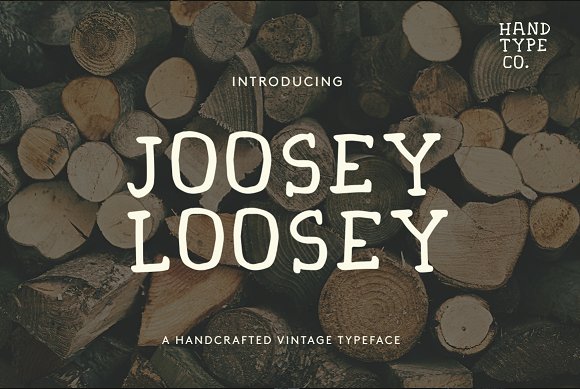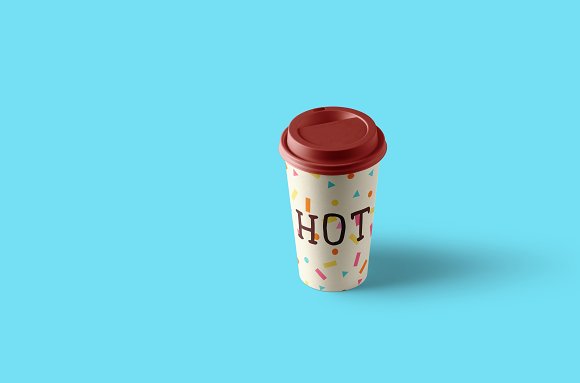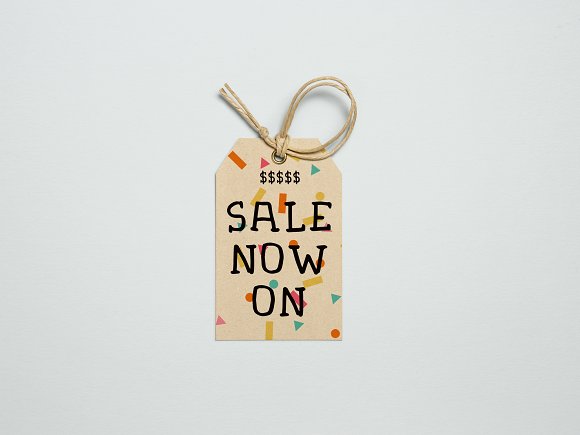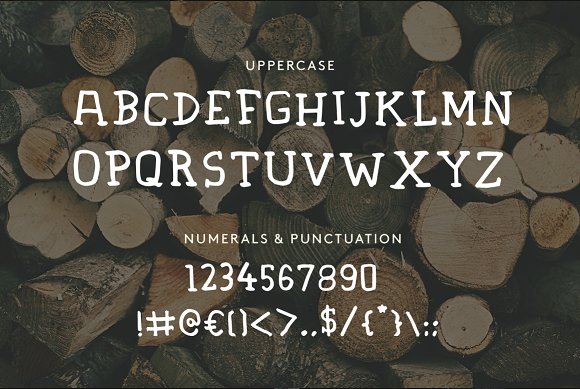
Joosey Loosey Font
Introducing Joosey Loosey Typeface.
Joosey Loosey is a vintage inspired hand-drawn font inspired from the old western vintage style.
Suitable and applicable for any material graphic designs, especially vintage designs.